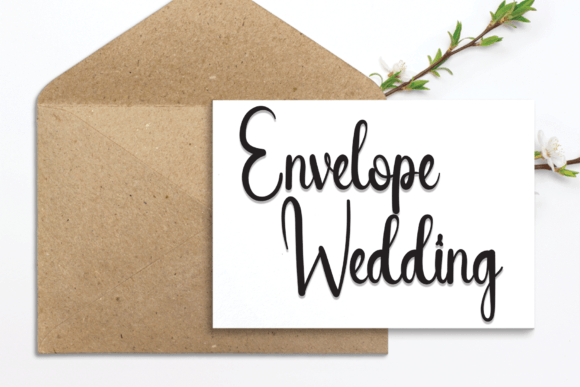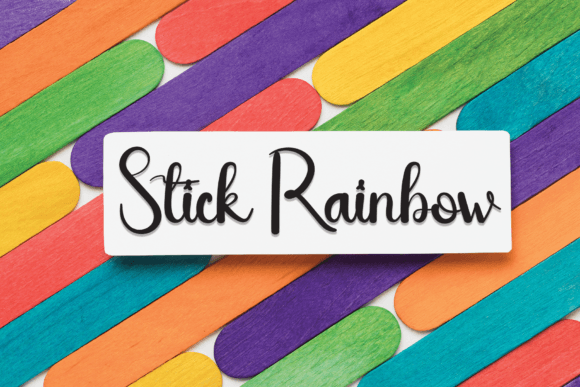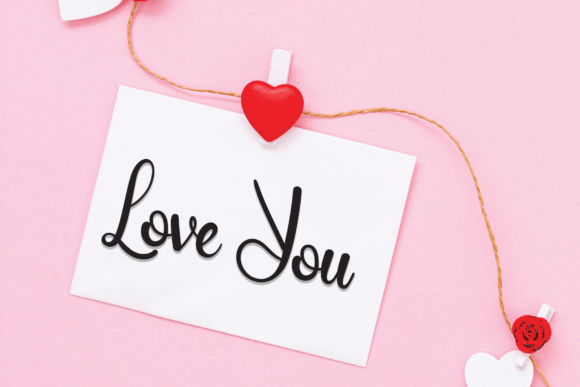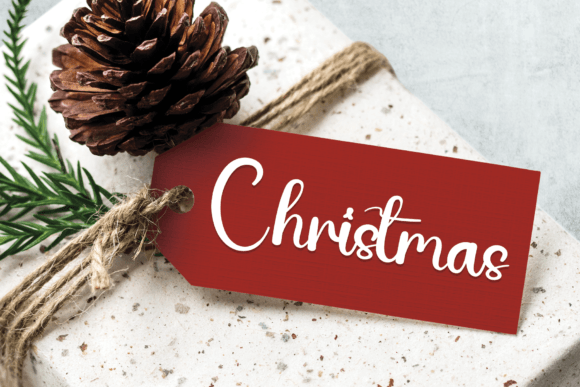
Fall in Love Font: The Perfect Choice for Romantic Designs
Are you looking for a font that exudes love, care, and romance? Look no further than the Fall in Love Font! This sweet and smooth handwritten font is perfect for designers and crafters who want to add a personal touch to their wedding invitations, cards, and other designs. In this article, we’ll dive into the features and benefits of the Fall in Love Font and explore how you can use it to create stunning romantic designs.
What is Fall in Love Font?
Fall in Love Font is a beautiful, handwritten font that is designed to capture the essence of love and romance. Its smooth and flowing lines make it perfect for creating elegant and sophisticated designs. The font is characterized by its cute and playful style, which makes it ideal for wedding invitations, Valentine’s Day cards, and other romantic designs.
Features of Fall in Love Font
- Sweet and smooth handwritten style: The Fall in Love Font features a beautiful, handwritten style that is both sweet and smooth. Its flowing lines and delicate curves make it perfect for creating romantic designs.
- Cute and playful: The font has a playful and cute style that makes it ideal for wedding invitations, cards, and other romantic designs.
- Highly legible: The Fall in Love Font is highly legible, making it perfect for use in both digital and print designs.
- Multilingual support: The font supports multiple languages, making it a great choice for designers who work with clients from different parts of the world.
Benefits of Using Fall in Love Font
There are several benefits to using the Fall in Love Font in your designs. Here are a few:
- Adds a personal touch: The Fall in Love Font adds a personal touch to your designs, making them more special and meaningful.
- Creates a romantic atmosphere: The font’s romantic style creates a beautiful atmosphere in your designs, perfect for wedding invitations, cards, and other romantic designs.
- Versatile: The font can be used in a variety of designs, from wedding invitations to cards, posters, and more.
Inspiration for Using Fall in Love Font
Here are a few ideas to get you started:
- Wedding invitations: Use the Fall in Love Font to create beautiful wedding invitations that set the tone for the big day.
- Valentine’s Day cards: Create romantic Valentine’s Day cards using the Fall in Love Font.
- Romantic posters: Use the font to create romantic posters that capture the essence of love and romance.
- Greeting cards: Create beautiful greeting cards for birthdays, anniversaries, and other special occasions.
The Fall in Love Font is a beautiful, handwritten font that is perfect for designers and crafters who want to add a personal touch to their romantic designs. Its sweet and smooth style, cute and playful vibe, and high legibility make it ideal for wedding invitations, cards, and other romantic designs. With its ease of use and versatility, the Fall in Love Font is a great addition to any designer’s toolkit.